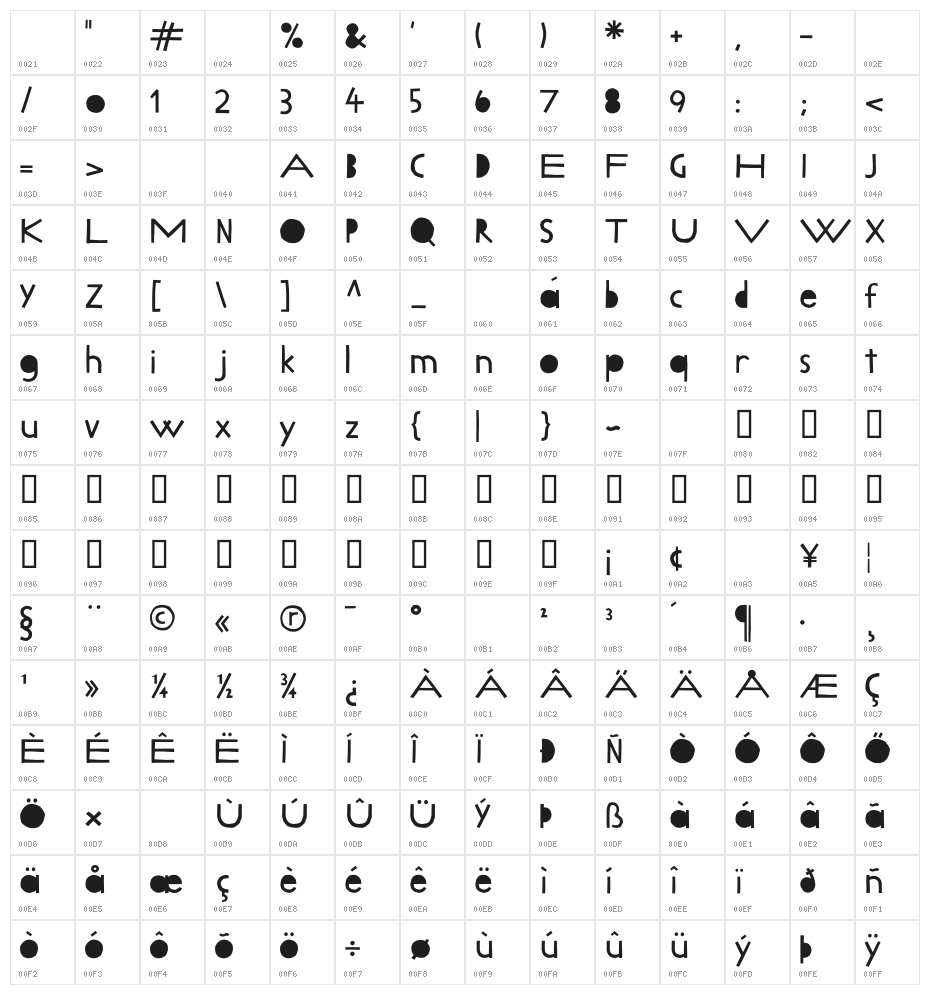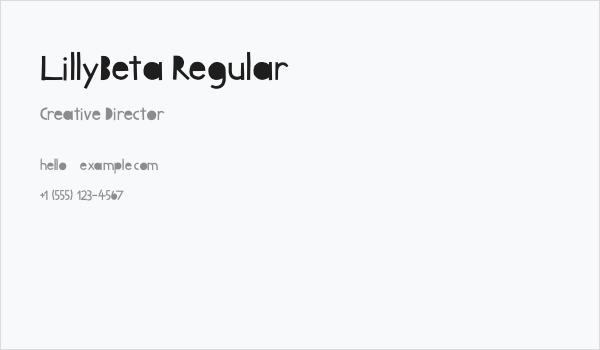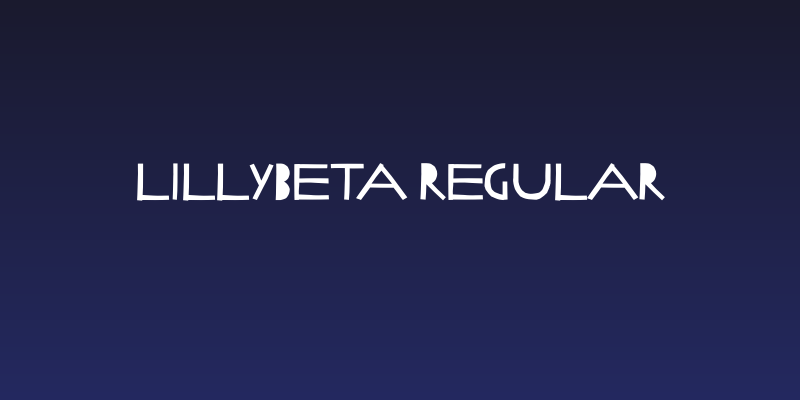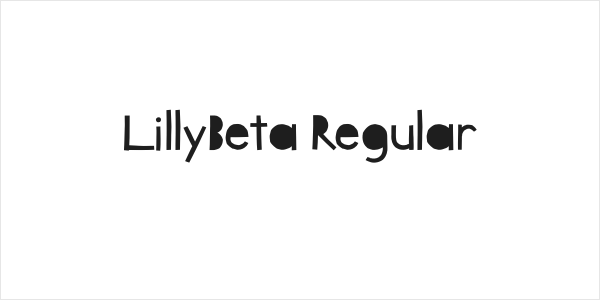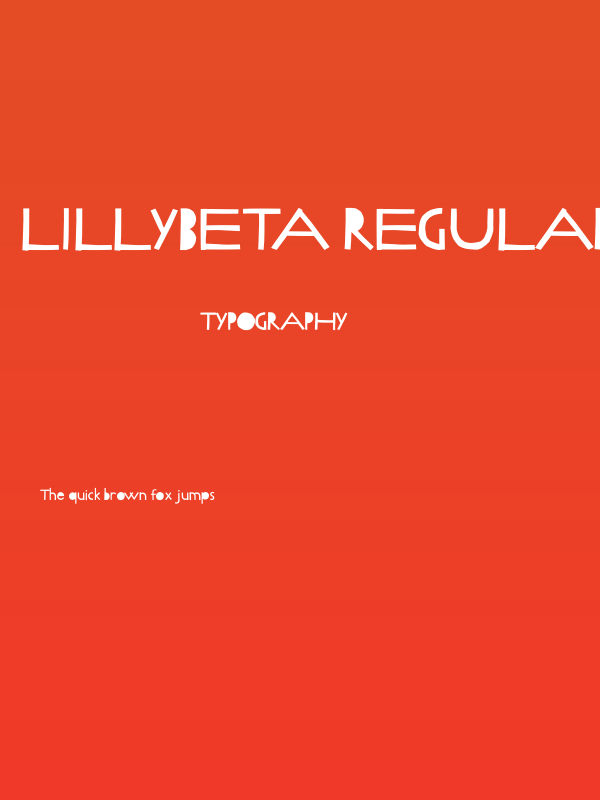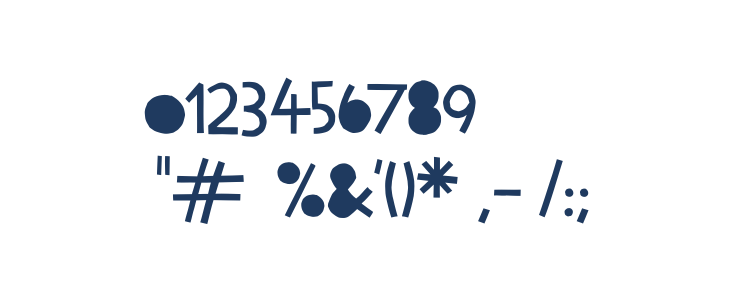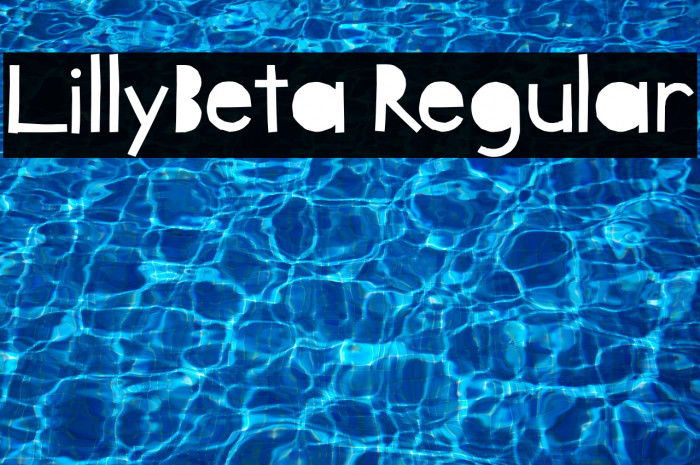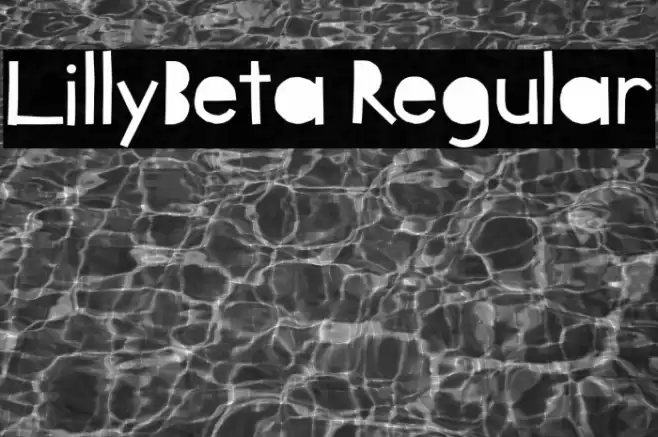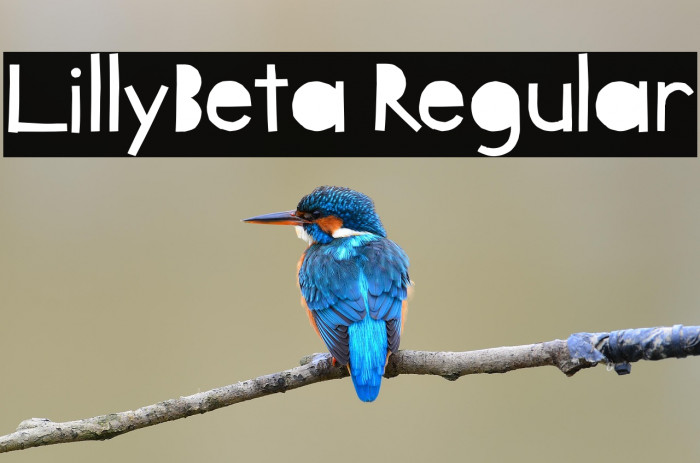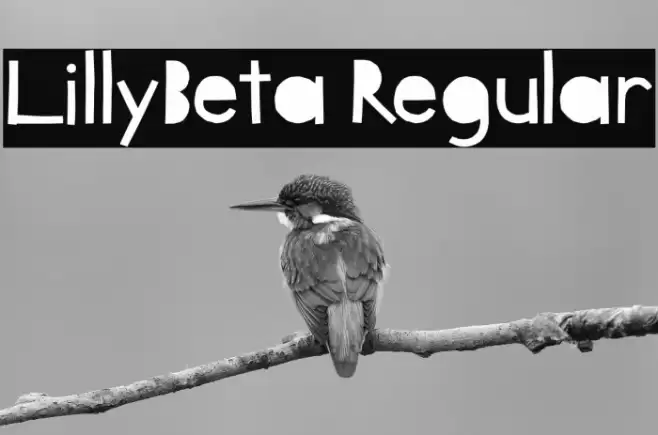
LillyBeta Regular Font
LillyBeta Regular Description
This font features a playful and artistic style, characterized by its bold and slightly irregular strokes. The uppercase letters have a unique geometric flair, with some characters displaying asymmetrical elements that add a whimsical touch. The lowercase letters maintain a consistent style, with rounded edges and a friendly appearance. Numbers are bold and clear, ensuring readability, while the special characters complement the overall design with their quirky shapes. The font's overall appearance is both modern and artistic, making it suitable for creative projects.
| Overall Style | Modern, Artistic |
| Proposed Projects | Ideal for creative projects such as children's books, playful branding, artistic posters, and unique invitations. |